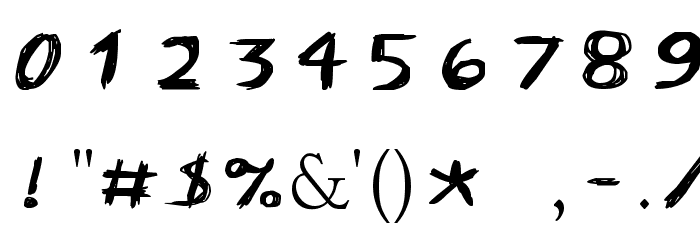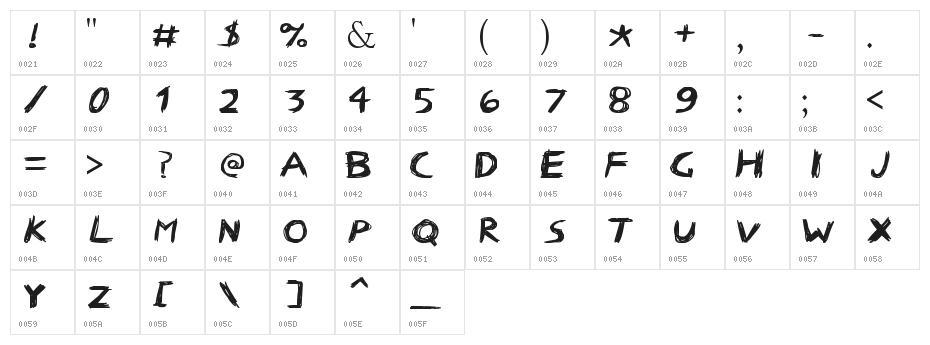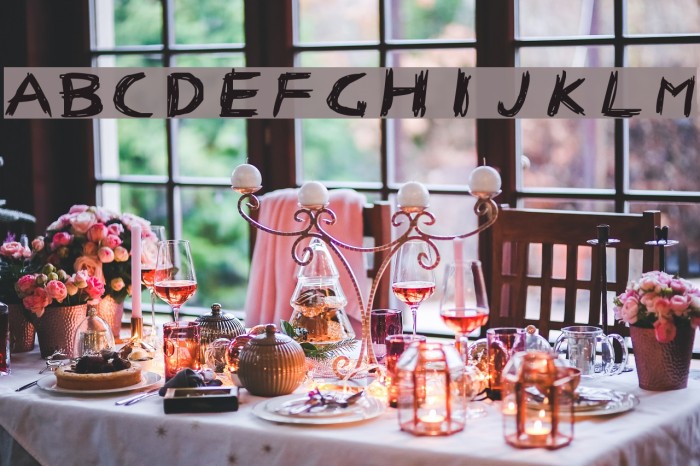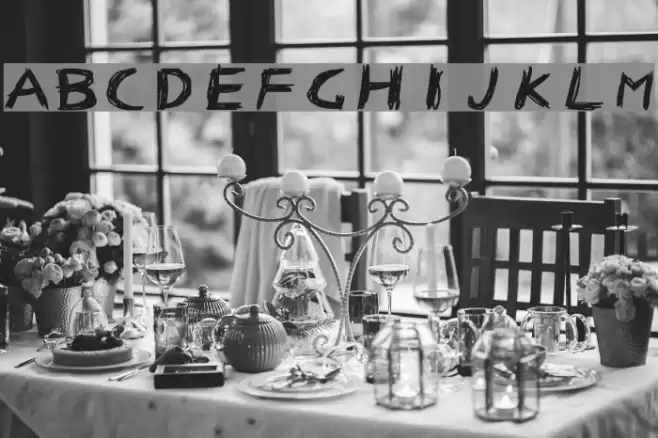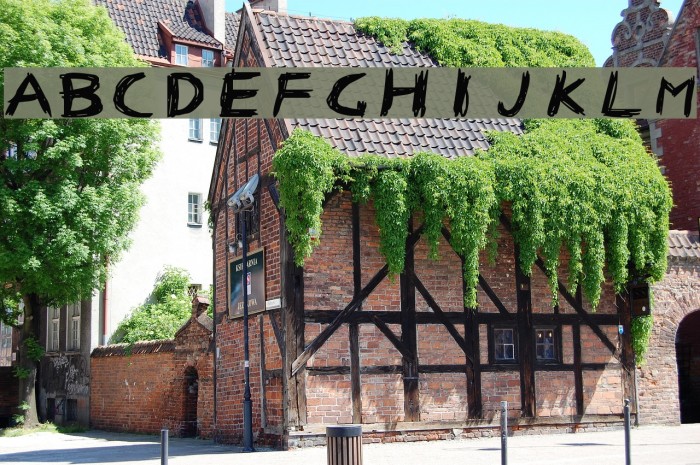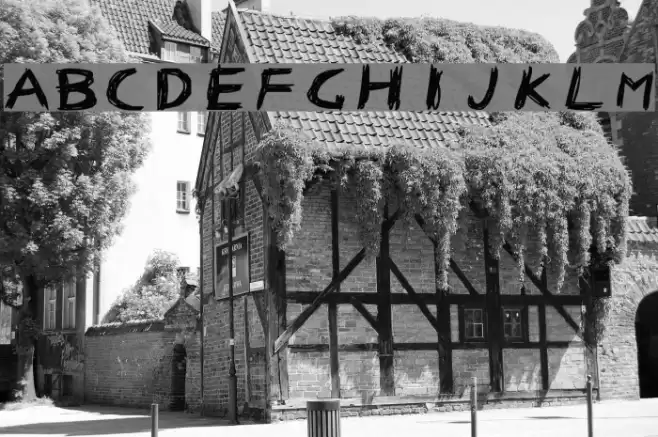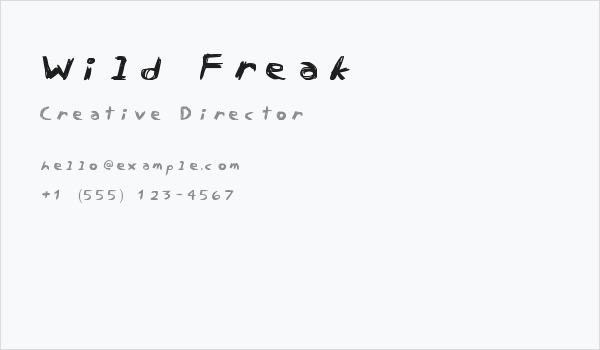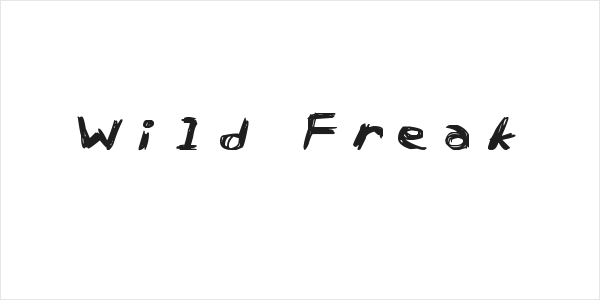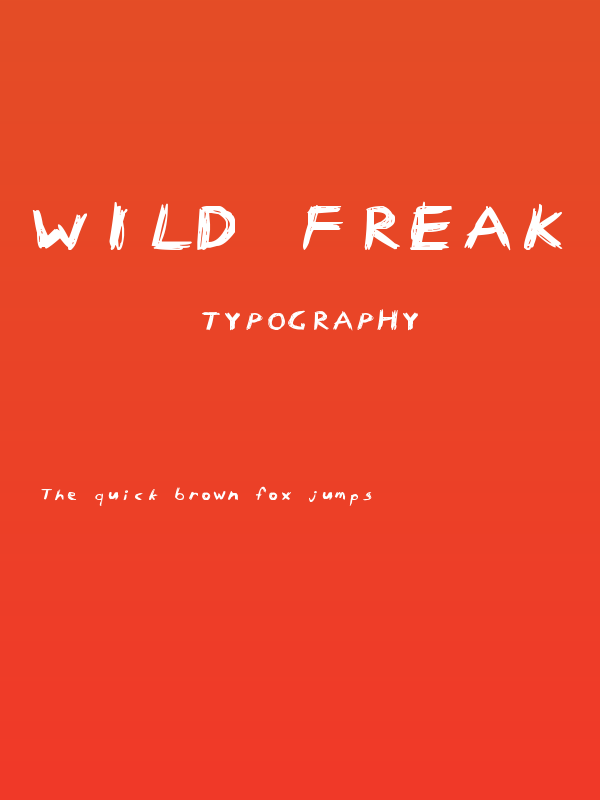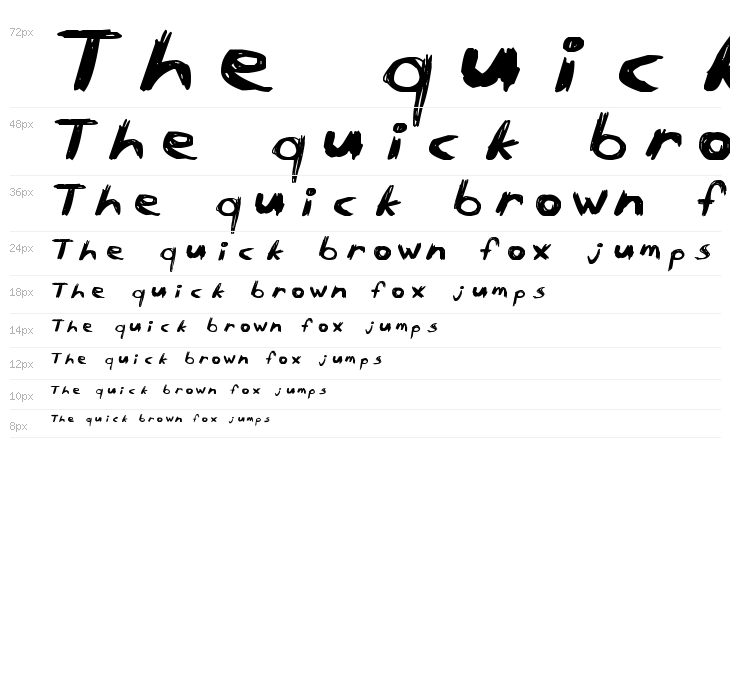
Wild Freak Font
Wild Freak Description
This font features a bold and expressive style with a hand-drawn appearance, characterized by its irregular and dynamic strokes. The letters have a playful and energetic feel, with varying thicknesses that give it a raw and artistic look. The uppercase and lowercase letters maintain a consistent style, while the numbers and special characters complement the overall aesthetic. This font is ideal for projects that require a touch of creativity and individuality, making it perfect for artistic and unconventional designs.
| Proposed Projects | Ideal for posters, album covers, artistic branding, and creative social media graphics. |